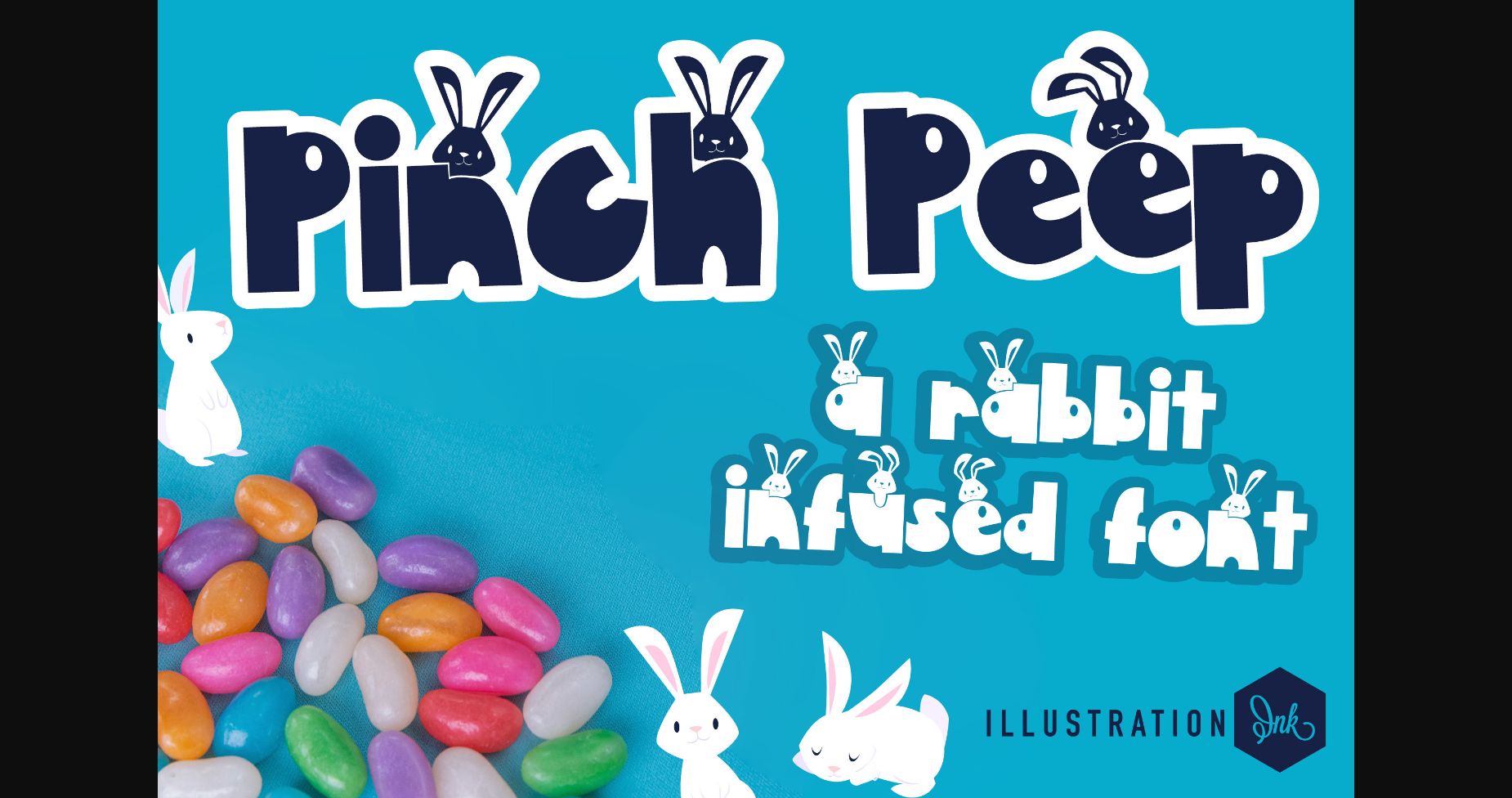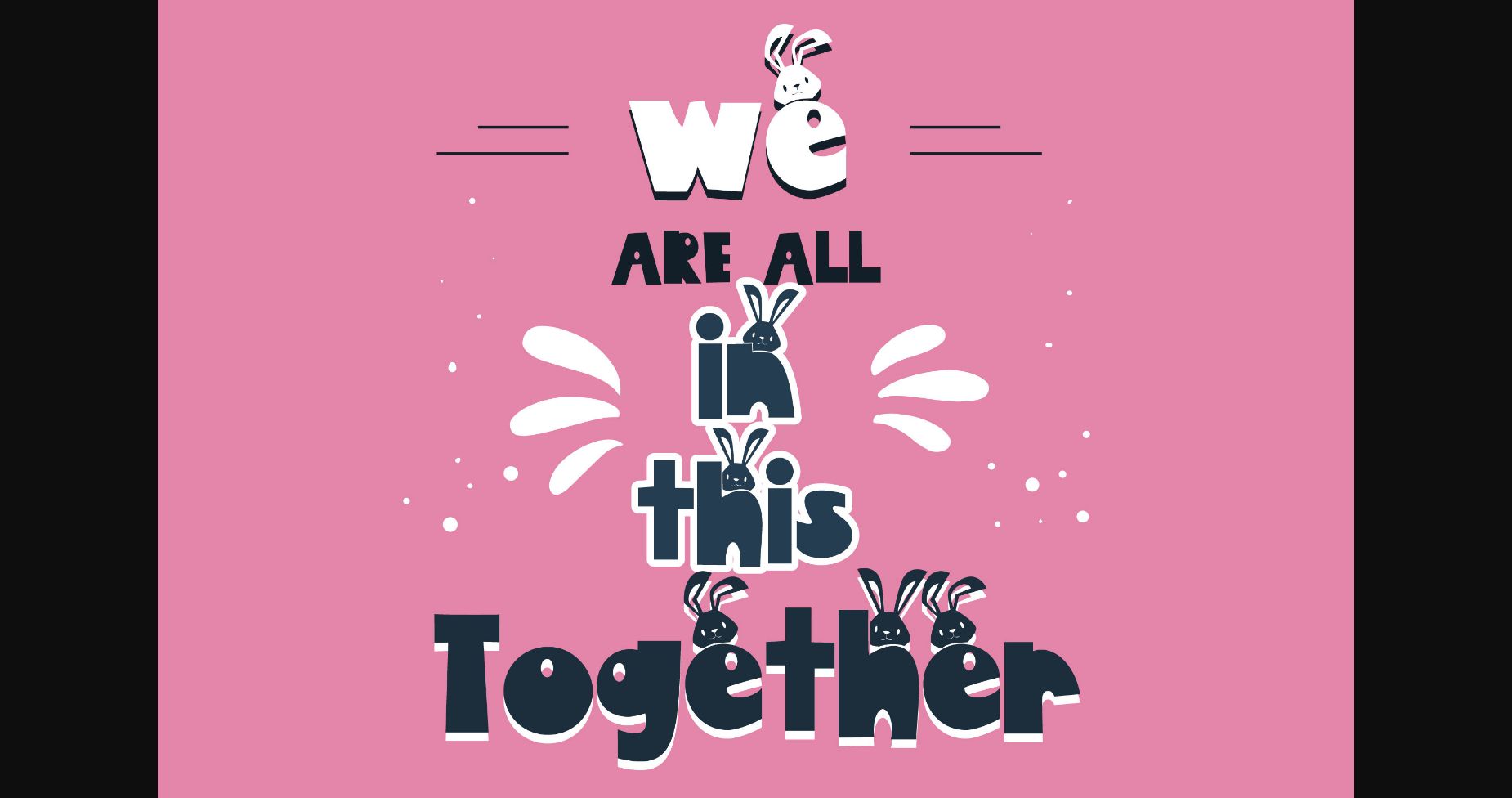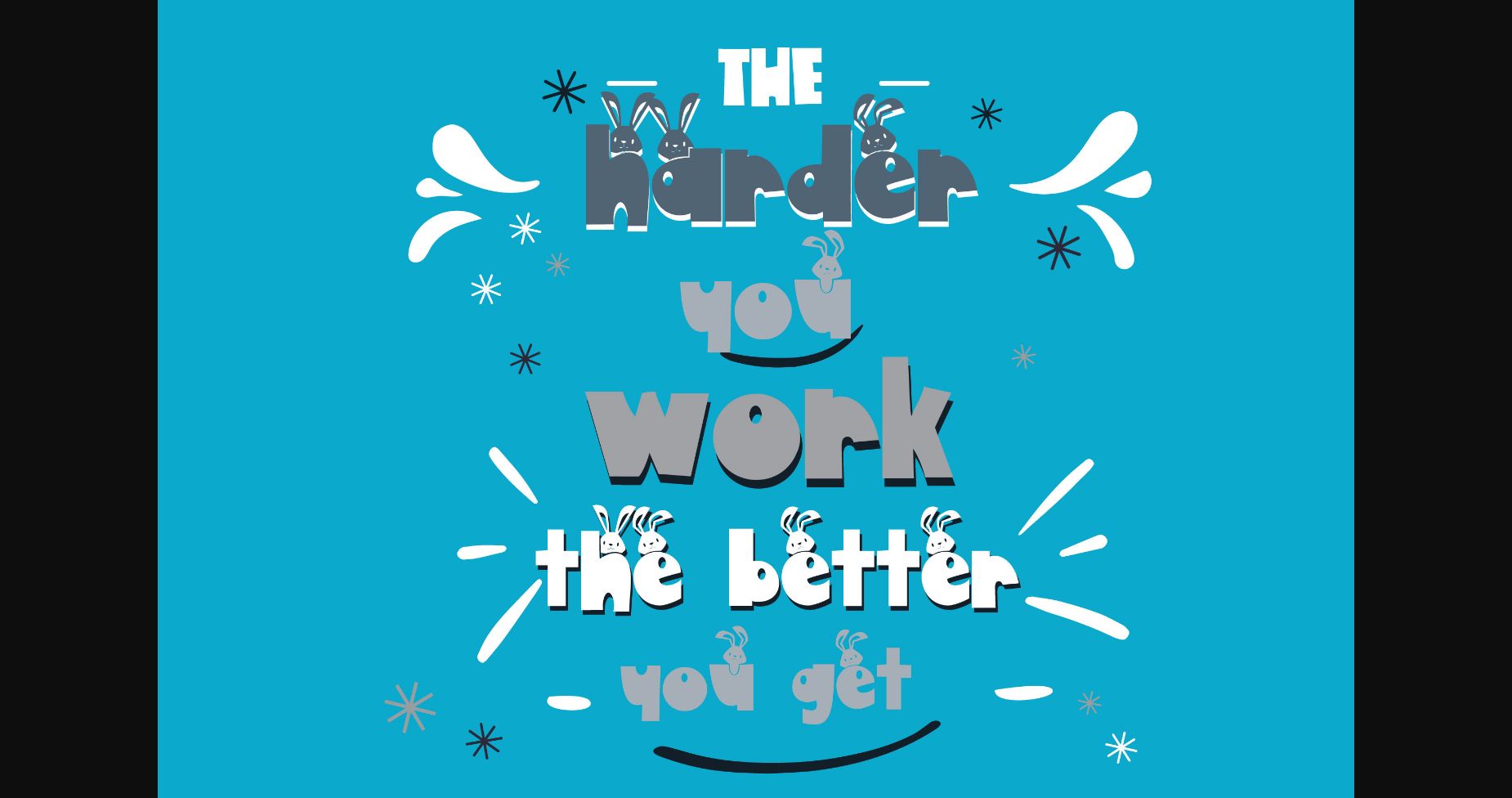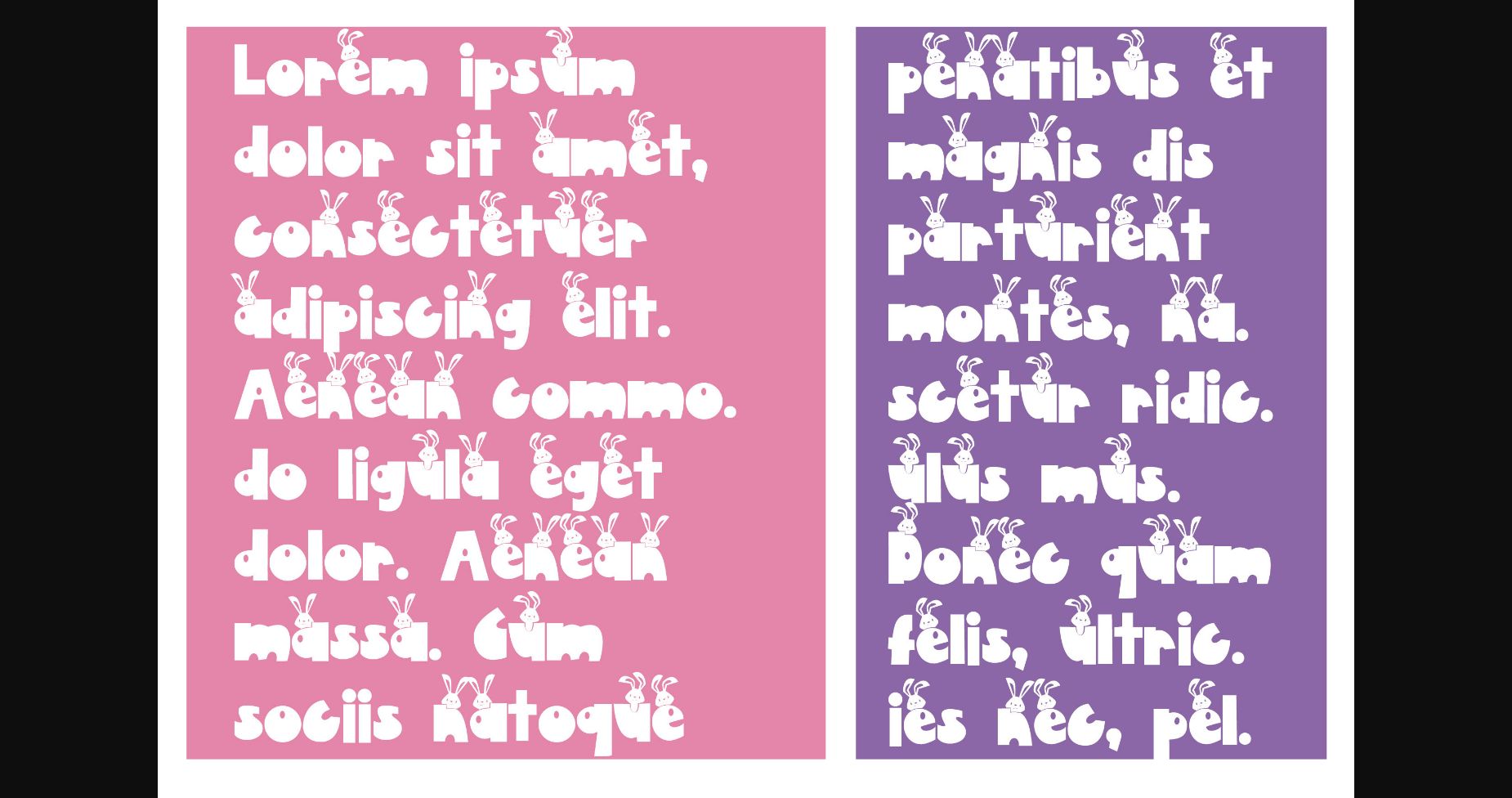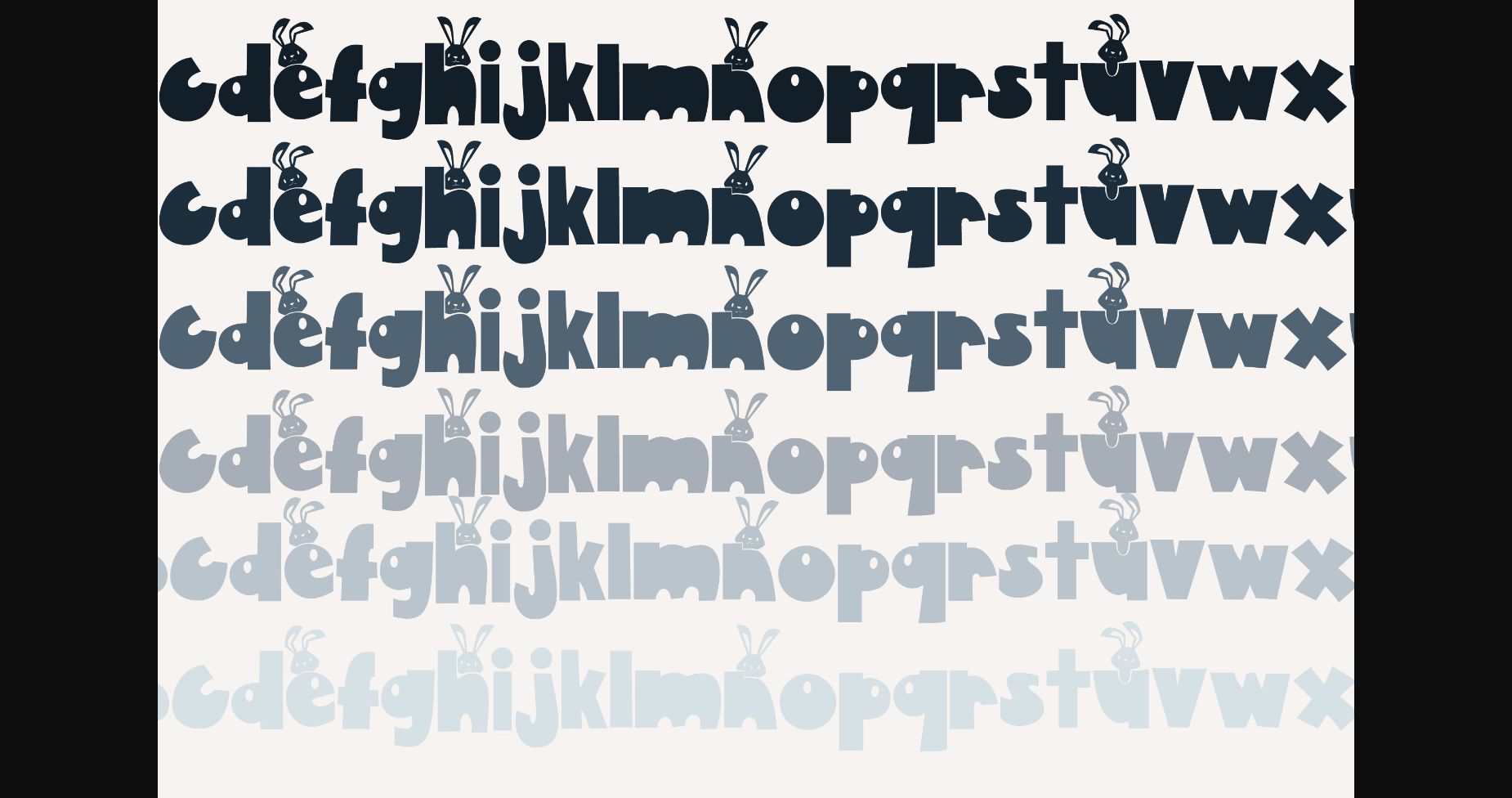
About Pinch Peep Font
Pinch Peep is a chunky sans-serif font that is a distinctive and bold option that’s perfect for designs celebrating the Easter season. Its unique letter shapes and powerful design exude character and charm while maintaining a modern and polished feel. The letters work together seamlessly, creating a captivating and memorable look.